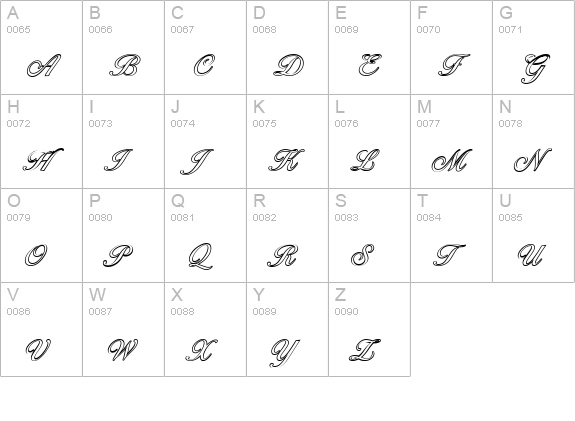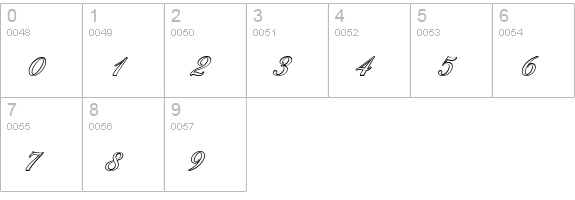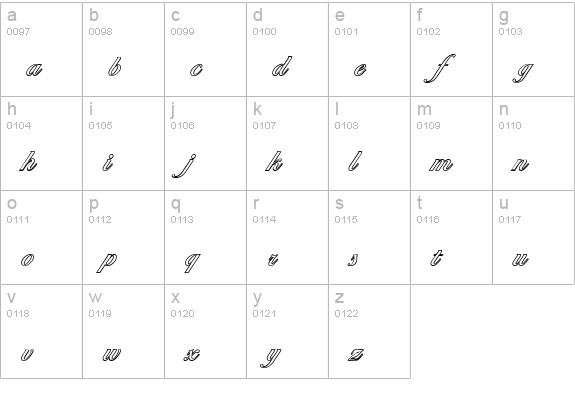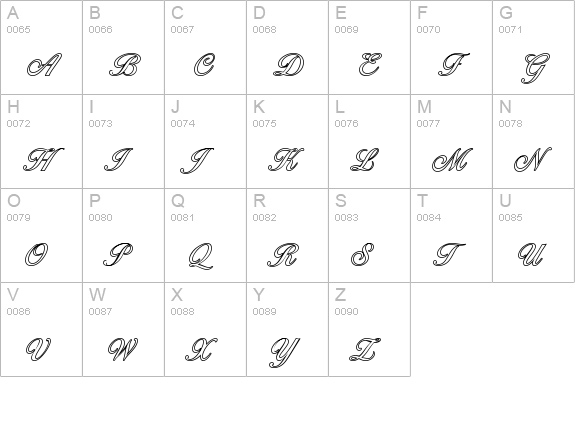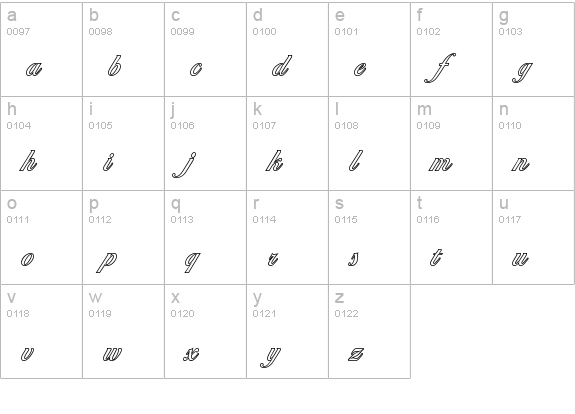
BallantinesOutline-Regular is the standard, neutral variant in the BallantinesOutline typeface family \xE2\x80\x94 well suited to general body text, paragraphs, and standard typographic work.
BallantinesOutline-Regular is a modern and stylish font that exudes a sense of sophistication and elegance. Its clean lines and sleek design make it perfect for a wide range of design projects, from branding to editorial to web design. The outline style of the font adds a unique and contemporary touch, making it stand out from the crowd. What sets BallantinesOutline-Regular apart is not only its aesthetic appeal but also its versatility. Whether you're looking to create a minimalist logo or an eye-catching poster, this font has you covered. Its readability and legibility ensure that your message will come across loud and clear, while its sleek design adds a touch of class to any project. The best part? BallantinesOutline-Regular is completely free to download at FontsMarket.com. That's right, you can elevate your designs with this stunning font without having to spend a dime. So why wait? Download BallantinesOutline-Regular today and take your design projects to the next level.